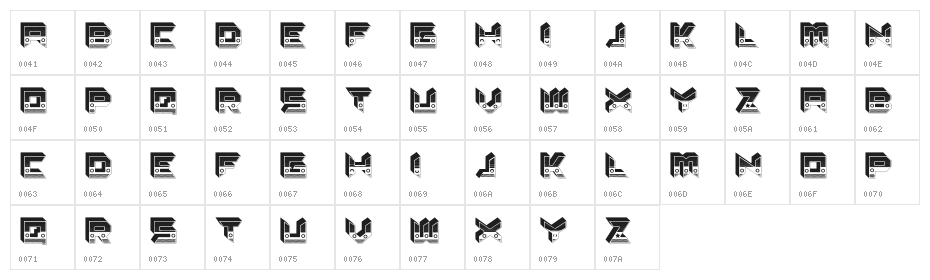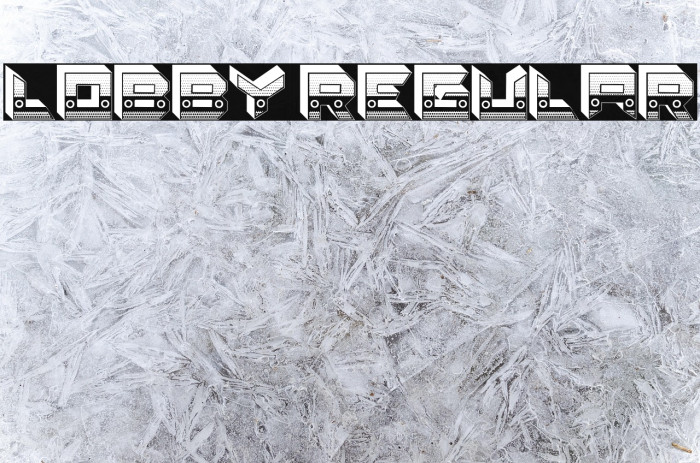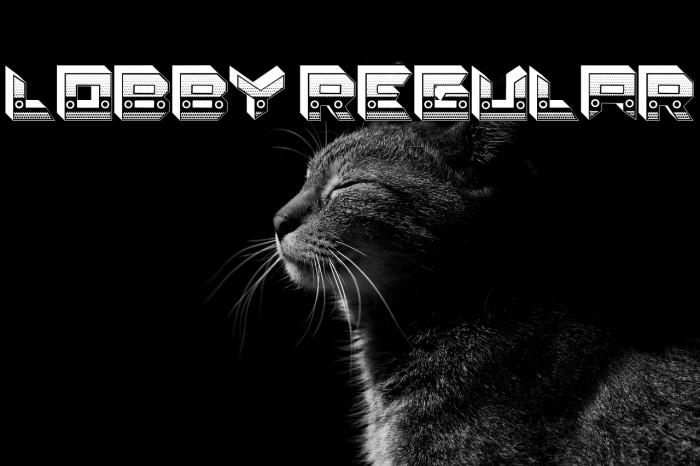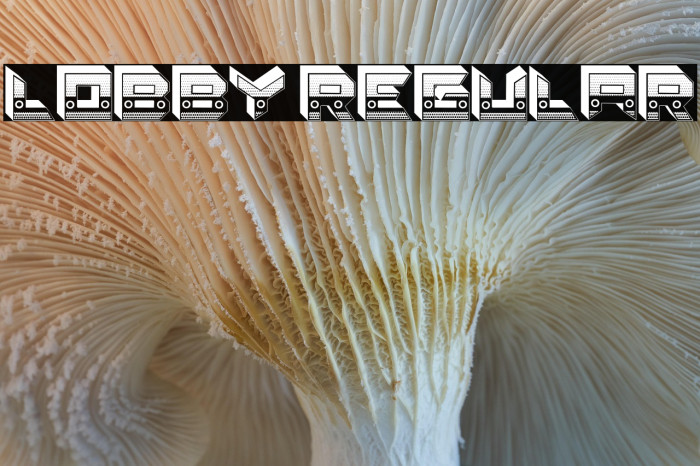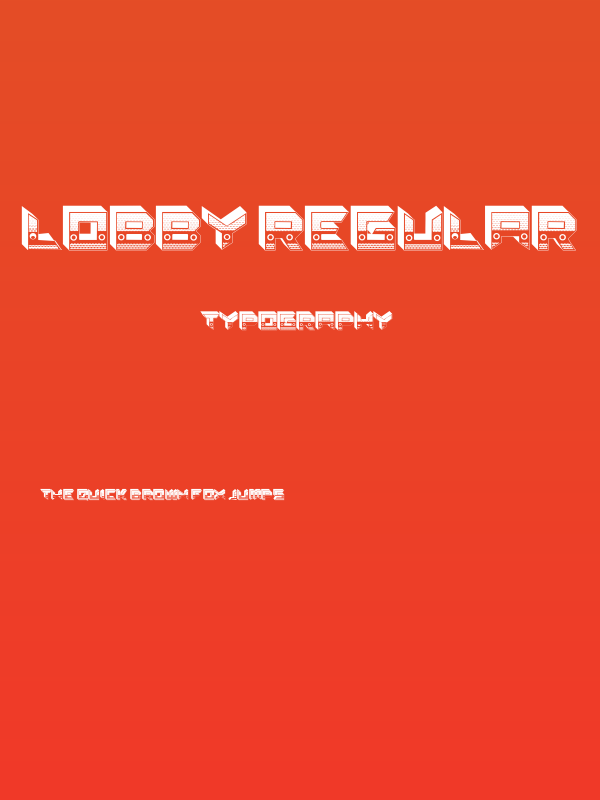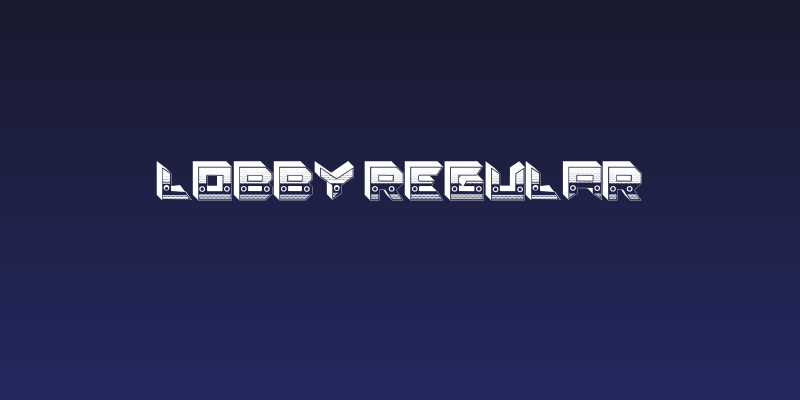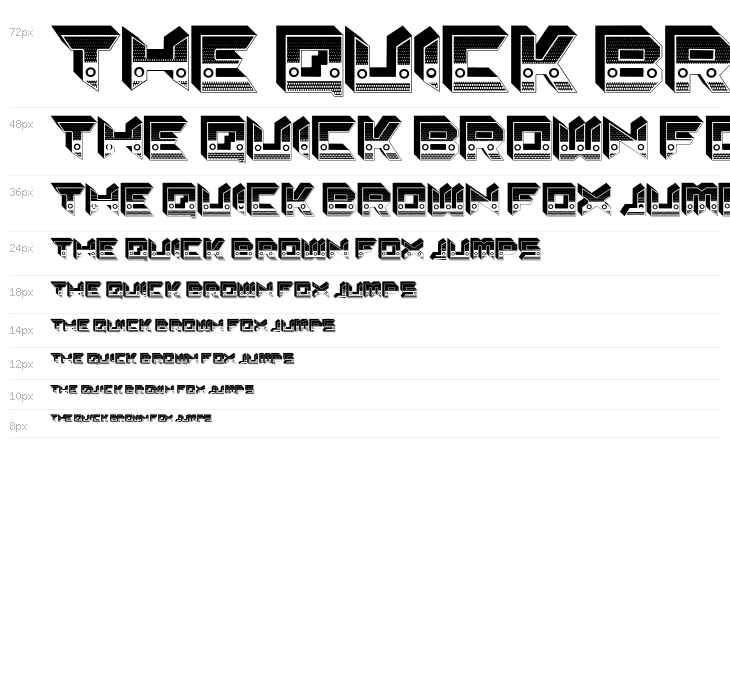
Lobby Regular Font
This font exhibits a bold, decorative style with intricate geometric patterns and mechanical elements embedded within each character. The uppercase letters are designed with a futuristic and industrial aesthetic, featuring angular shapes and detailed textures that resemble circuit boards or machinery. The font's unique design elements make it stand out, offering a visually striking appearance that captures attention. Its complex detailing and bold structure suggest a theme of technology and innovation, making it suitable for projects that require a modern and edgy look.
| Overall Style | Futuristic, Industrial |
| Proposed Projects | Ideal for technology-themed posters, sci-fi book covers, video game titles, and branding for tech companies. |